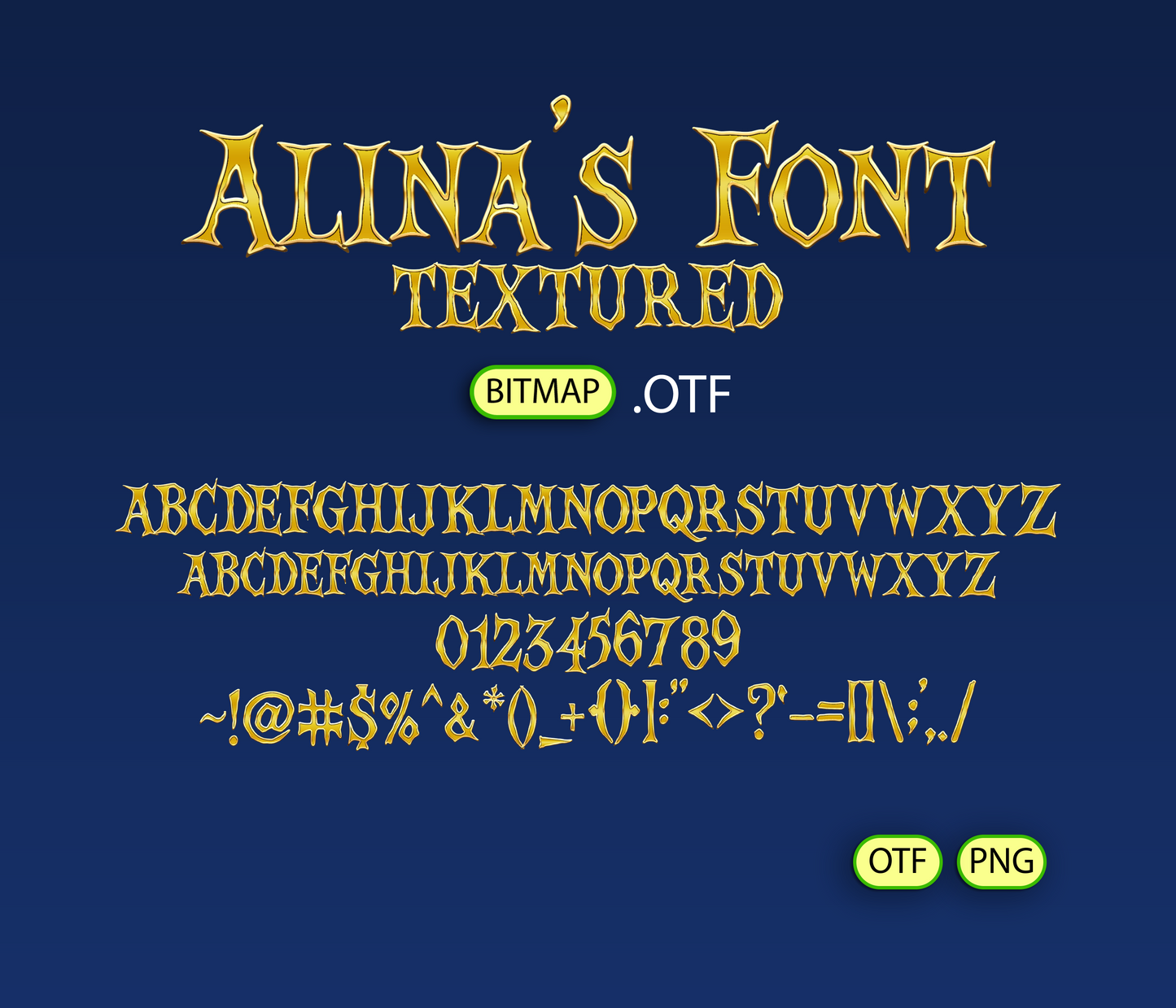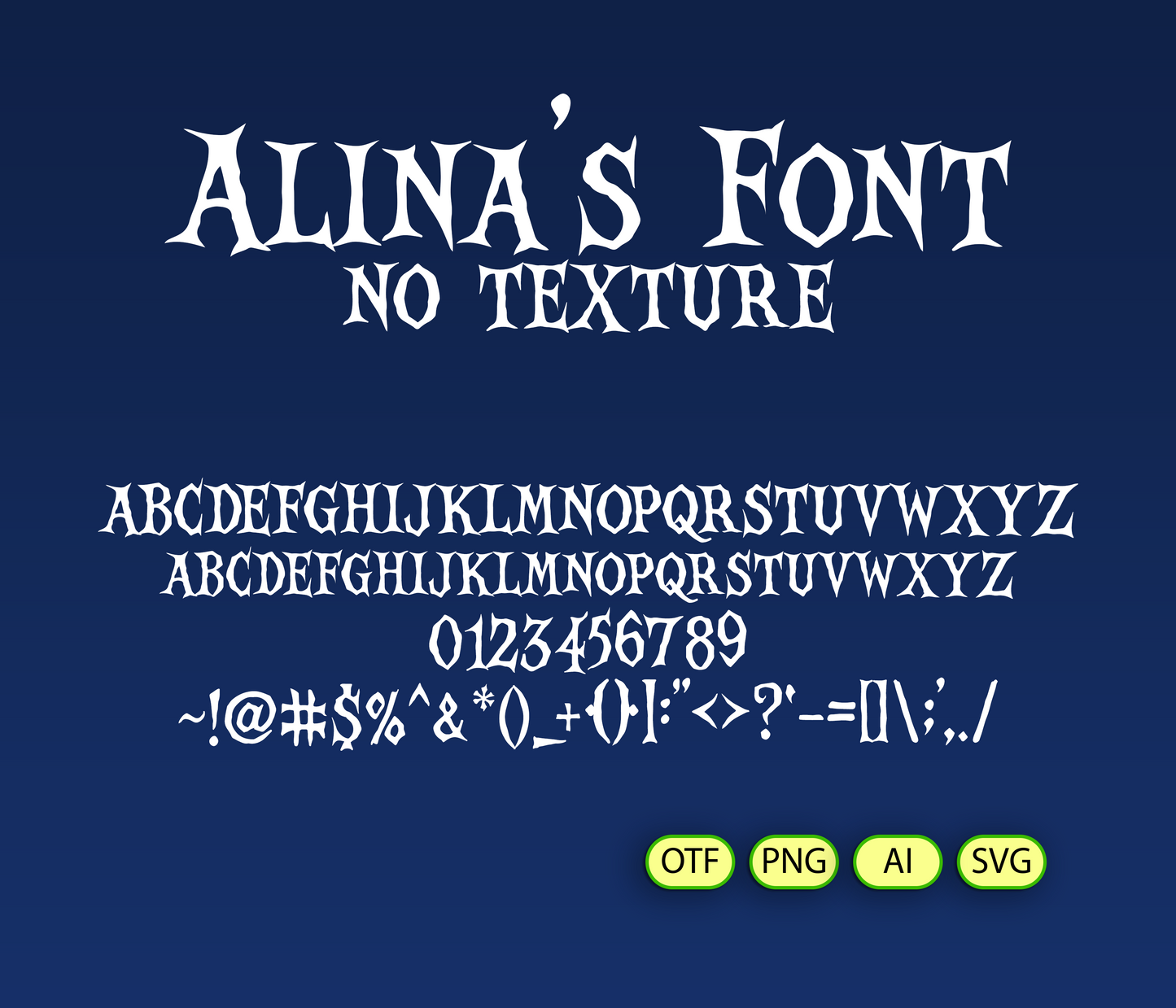
Gothic Golden Font Textured
Step into the elegant world of medieval-inspired typography with our Golden Gothic font, capturing the essence of ornate cathedral architecture and illuminated manuscripts. Perfect for history enthusiasts, fantasy creators, event organizers, and designers, this font brings the dynamic, regal spirit of Gothic artistry to your projects. Create luxurious materials, merchandise, or digital content with the timeless energy of this classic calligraphic style.
Our Golden Gothic font features intricate, majestic lines and gilded-looking characters reflecting the world of medieval craftsmanship. Ideal for:
- Event Promotions: Create sophisticated invites, posters, and banners for renaissance fairs, fantasy conventions, and themed parties that capture the spirit of medieval grandeur
- Merchandise Design: Perfect for t-shirts, posters, and accessories that showcase the ornate aesthetic of Gothic artistry
- Digital Media: Enhance websites, blogs, and social media with elegant headers and graphics that express the power of historical typography
- Fantasy Content: Add authentic flair to fan art, medieval projects, and creative designs inspired by Gothic architecture and illumination
- Personal Projects: Bring regal elegance to scrapbooking, DIY crafts, and home decor inspired by the world of medieval artistry
Our font pays tribute to the iconic world of Gothic calligraphy, empowering your designs with its elegant and majestic spirit. Whether crafting promotional materials, designing merchandise, or adding a dynamic touch to personal projects, this font communicates the bold essence of medieval artistry. Ready to inject Gothic grandeur into your creations? This font is your key to exciting, impactful design.
Gothic Golden Font